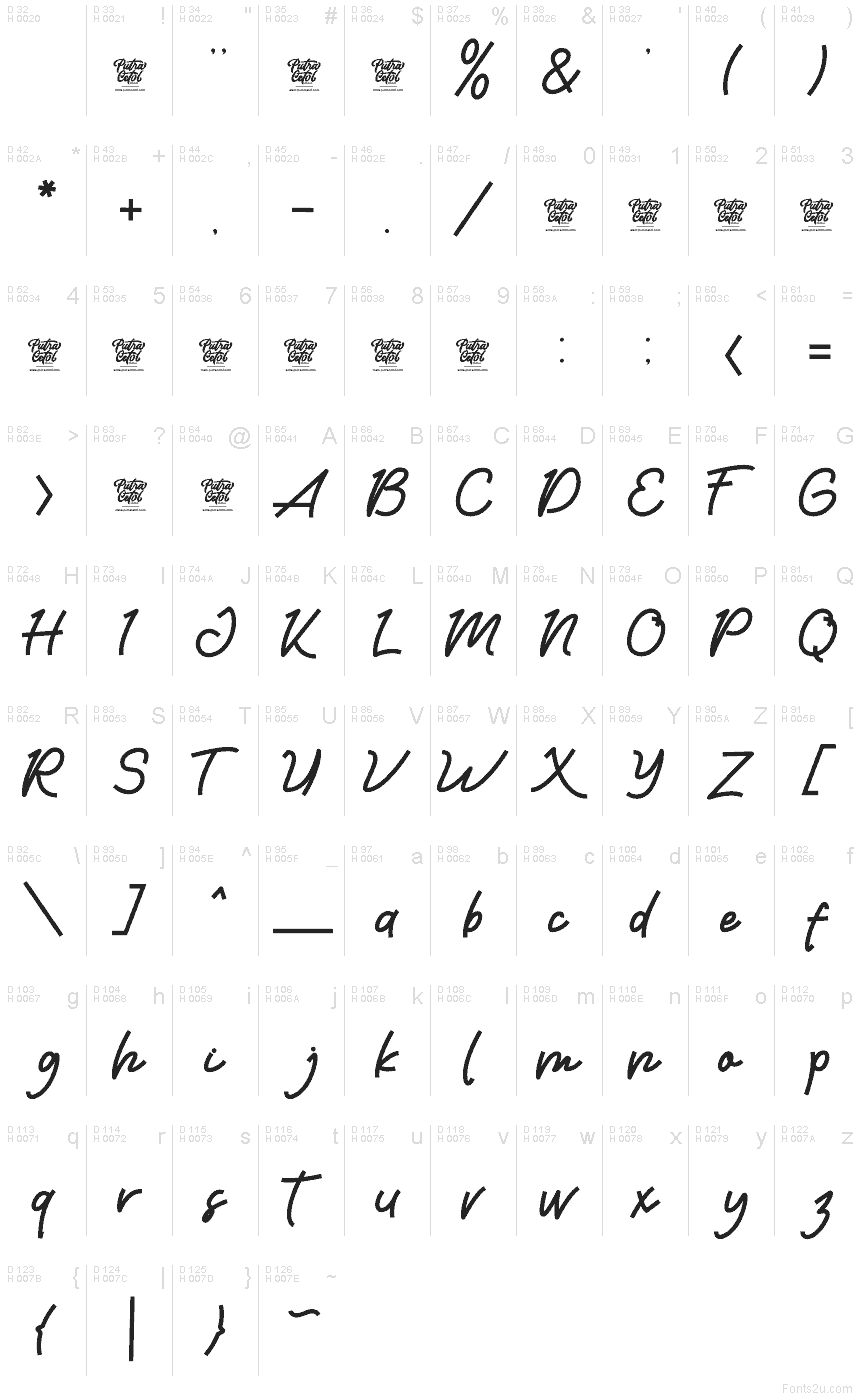
Smoothy Candy
Smoothy Candy font by PutraCetol Studio has a handwritten appearance with a casual feel and a modern vibe. Displaying an expressive flair, it imitates a natural authentic ink-on-paper handwriting inspired by the signature style. The design also features an appropriate font weight without too many contrasting elements which allows its use in both bigger and smaller text sizes.
Free handwritten font Smoothy Candy works great in short or long-running texts such as invitations, bookmarks, assessments projects covers, social media posts, hashtags over images and videos. Use it to instantly upgrade your posters for shops like bakeries or create wonderful designs for recyclable products like paper bags.